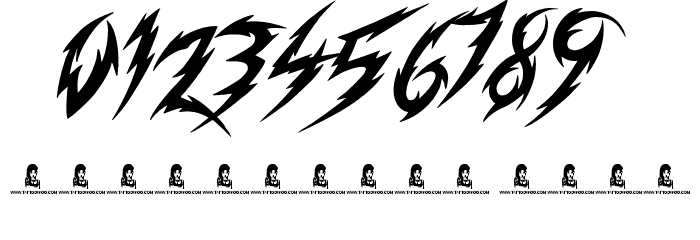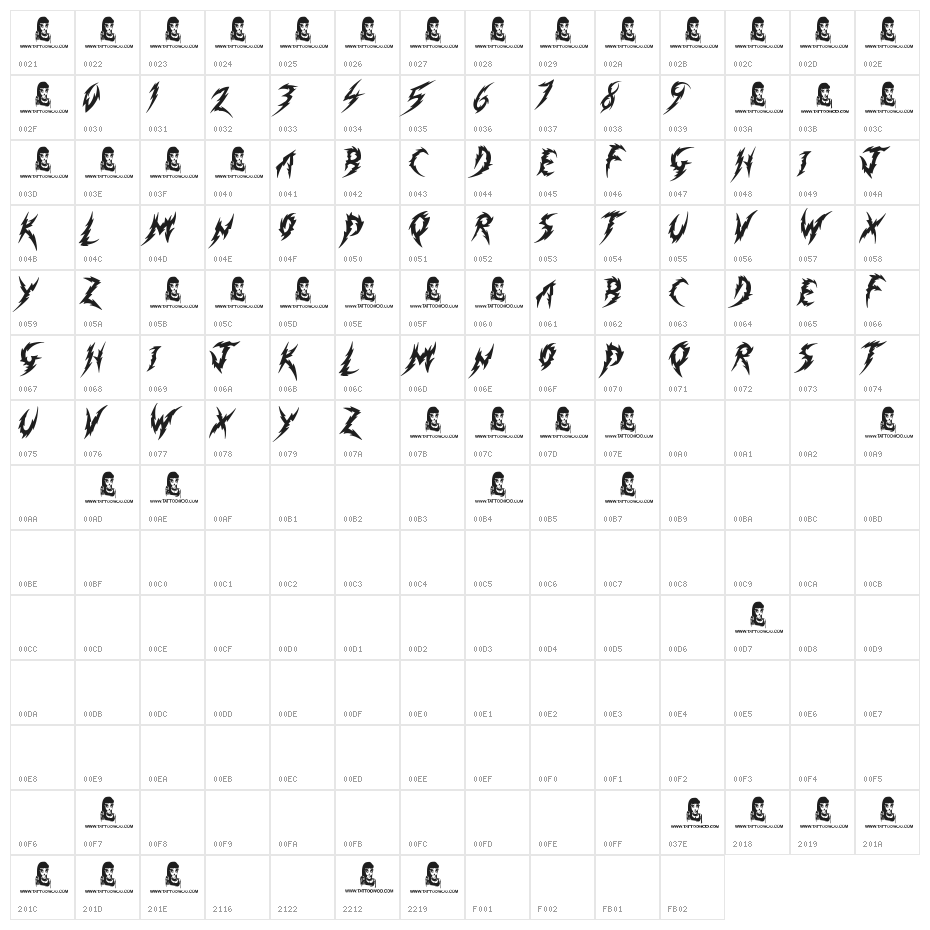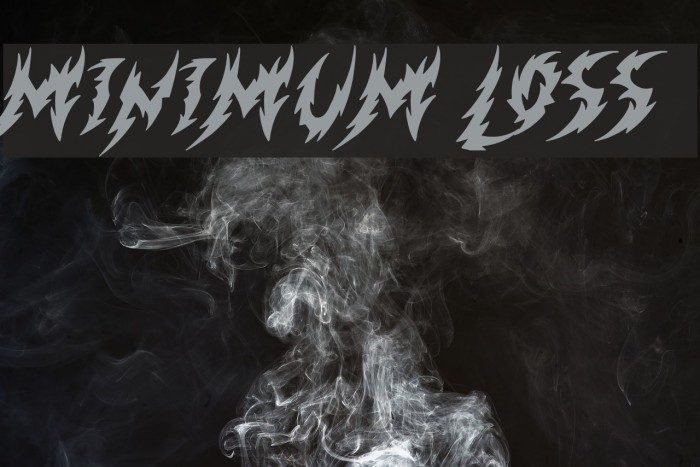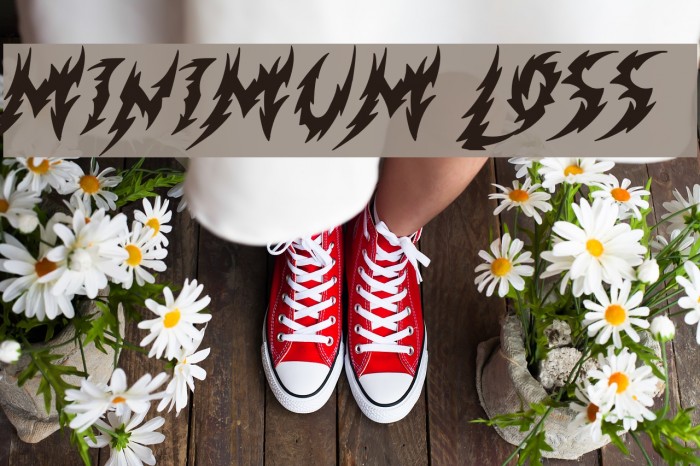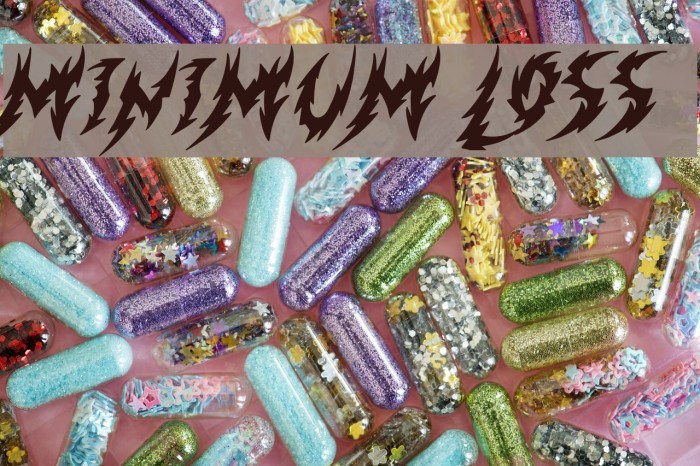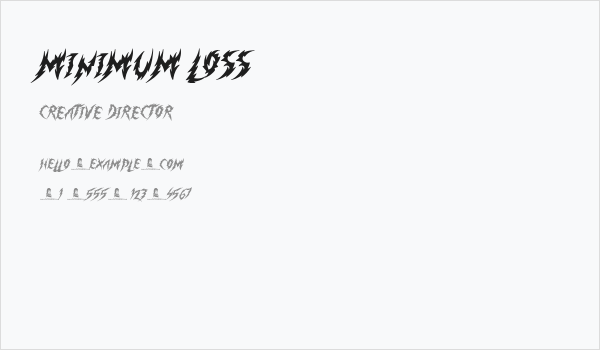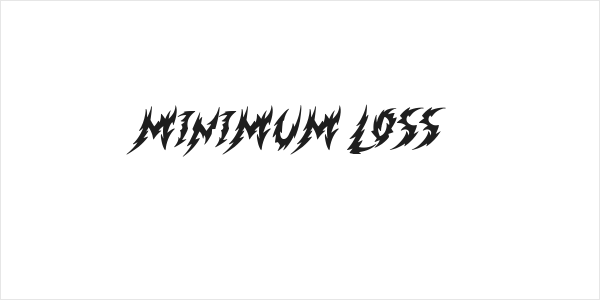
Minimum Loss Font
Minimum Loss Description
This font features a bold, jagged design with sharp, angular edges that give it a fierce and aggressive appearance. The characters are highly stylized, resembling thorny or flame-like shapes, which create a dynamic and energetic feel. The uppercase and lowercase letters maintain a consistent style, with exaggerated points and curves that enhance its dramatic impact. The numbers follow the same aesthetic, ensuring a cohesive look across all characters. This font is ideal for projects that require a strong, eye-catching visual element, such as posters, album covers, or branding for edgy or alternative products.
| Proposed Projects | Ideal for posters, album covers, edgy branding, or alternative product designs. |